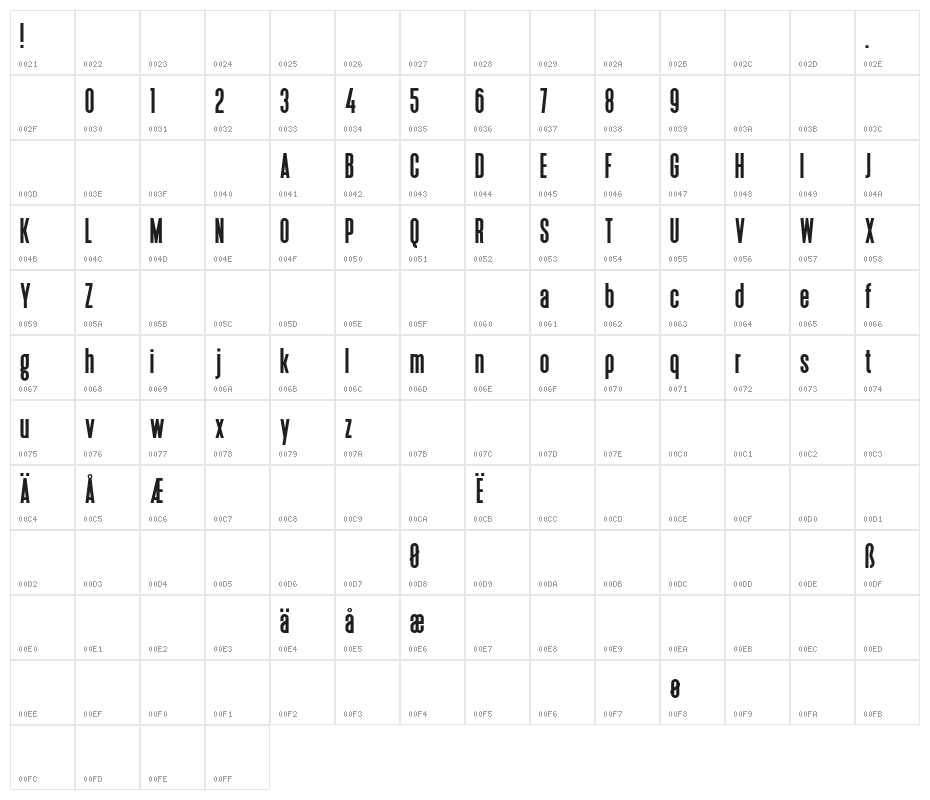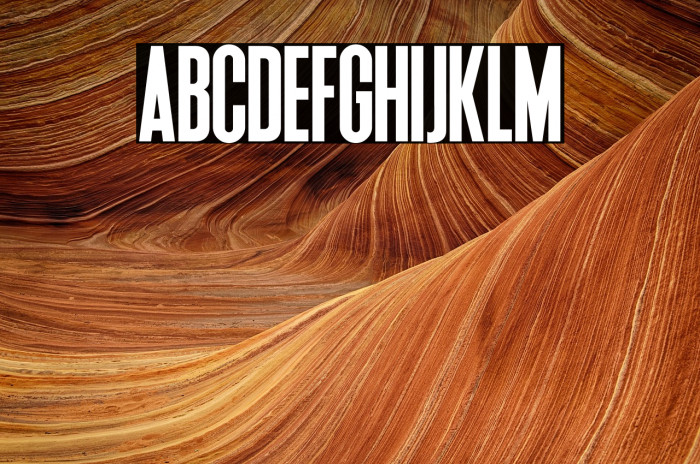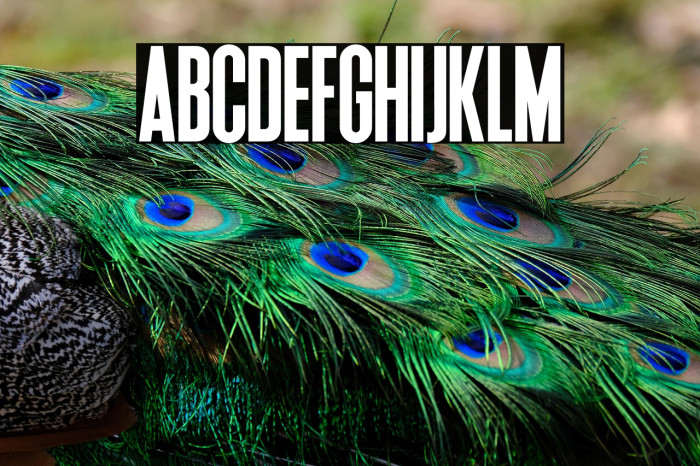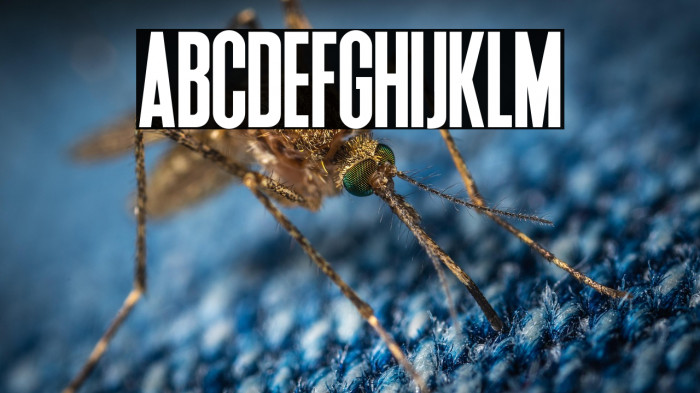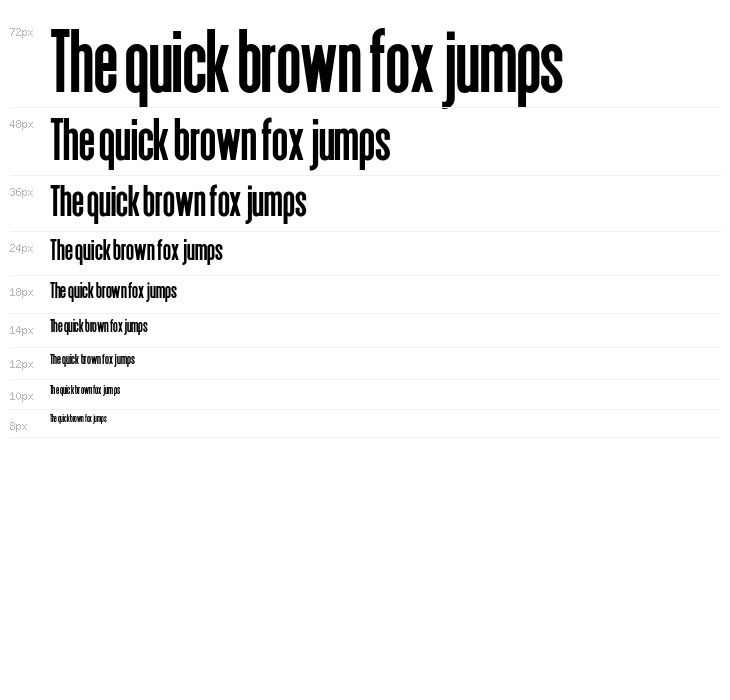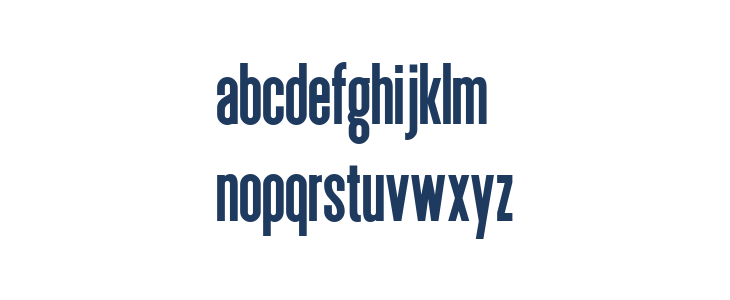
Deutschlander 2.0 Font
Deutschlander 2.0 Description
This font features a bold and commanding presence with its thick, uniform strokes and tall, condensed letterforms. The uppercase letters are particularly striking, with a strong vertical emphasis that conveys a sense of authority and modernity. The lowercase letters maintain the same boldness, ensuring readability while preserving the overall aesthetic. The numerals are clear and consistent, matching the robust style of the alphabet. Special characters are included, adding versatility for various design needs. The font's design is well-suited for impactful headlines and branding, where a strong visual statement is desired.
| Proposed Projects | Ideal for headlines, posters, branding, and advertising where a bold statement is needed. |